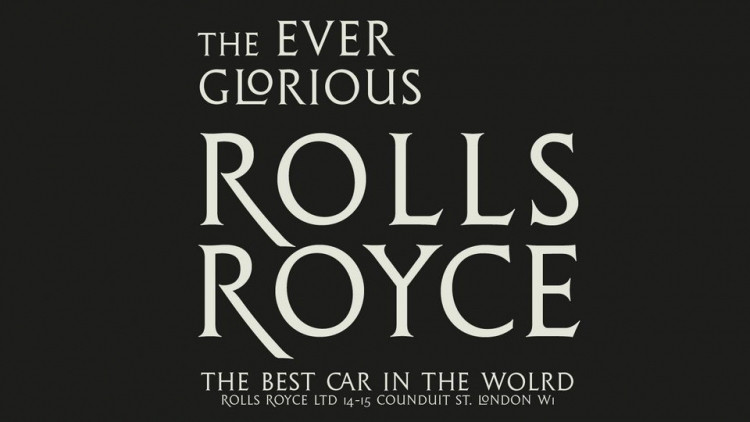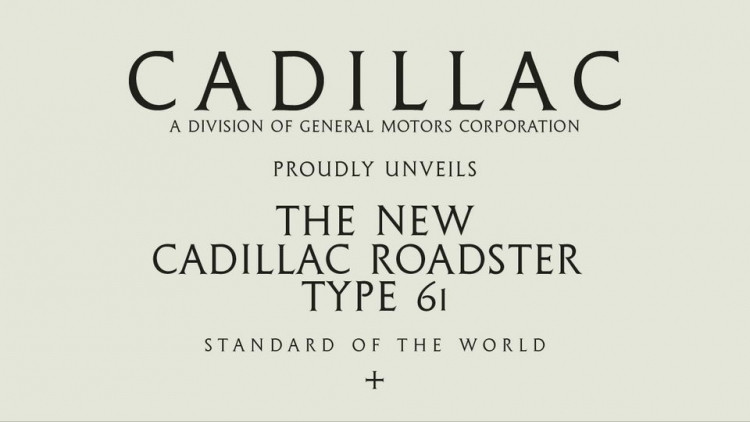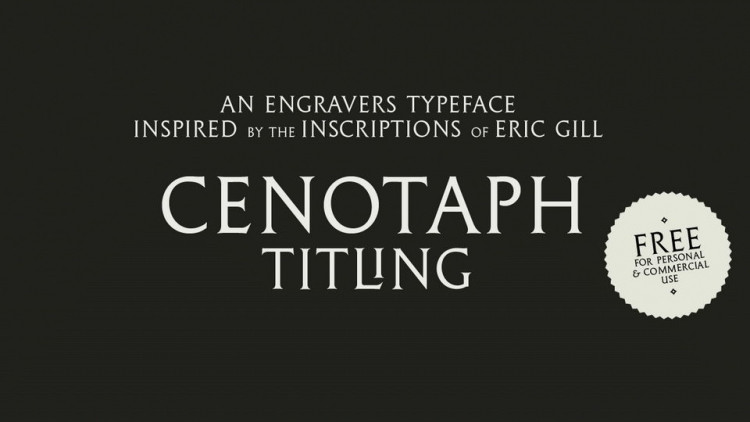
Cenotaph Titling Serif Font
Cenotaph Titling Serif Font is an engraved-style titling typeface which draws reference from inscriptions done by Eric Gill – most notably in the vertical stem in the ‘U’.
In OpenType format it contains 10 discretionary ligatures useful for stylistic and practical spacing purposes, as well as 3 alternate ampersands and proportional old style numerals.